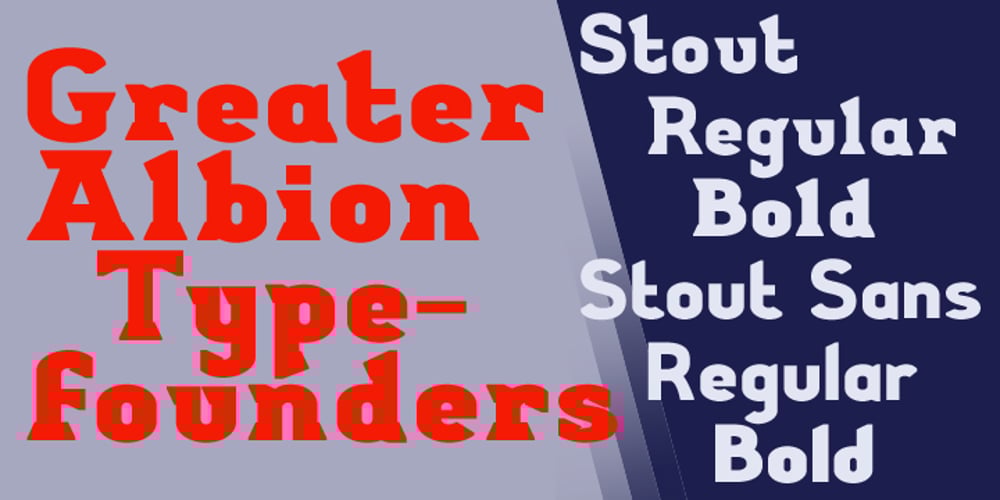
Stout Font Family was designed by Paul James Lloyd and published by Greater Albion Typefounders. Stout contains 4 styles and family package options. Stout is a deliberately aggressively solid family of four faces, offered in two weights and in serif (deliberately large serifs) and sans forms. It’s ideal for signage that needs to be read over long distances or for anything where an emphatic statement is needed. Stout is big and clear and always makes a statement.